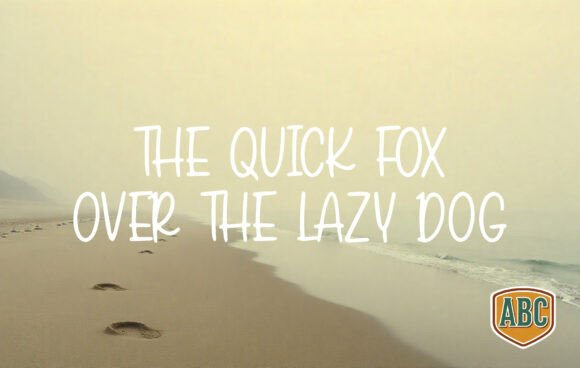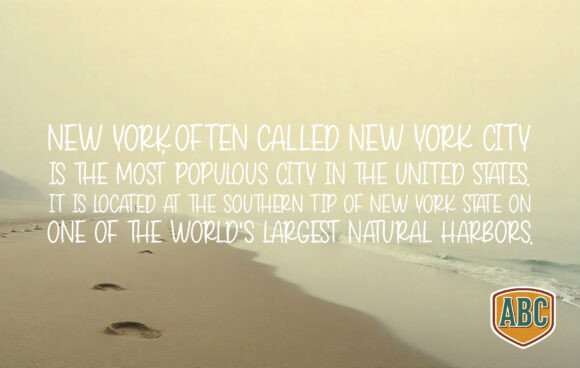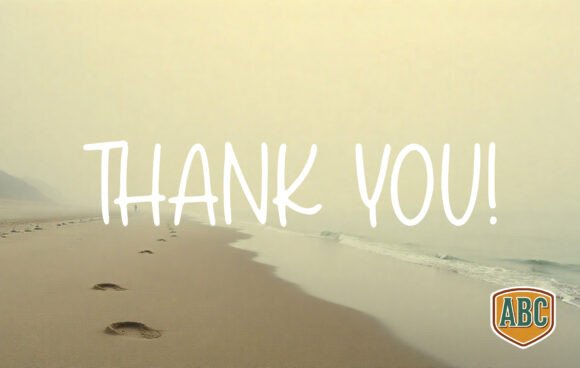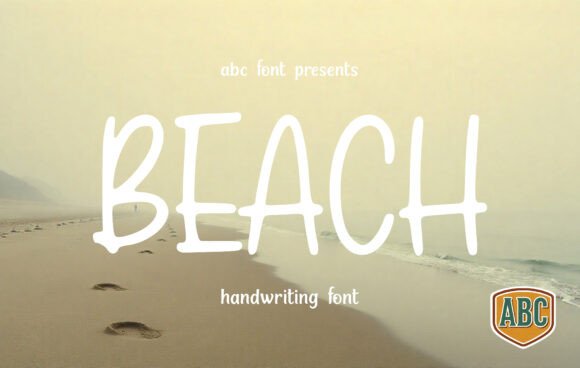
Introducing Beach Font: The Ultimate Casual Handwriting Font for Summer Vibes
Are you looking for a font that captures the carefree essence of a summer day at the beach? Look no further than Beach Font, a breezy and effortless casual handwriting font that’s perfect for bringing the relaxed vibes of the coast to your creative work.
The Characteristics of Beach Font
Beach Font features tall, slightly irregular strokes that mimic the look of writing in the sand or on a seaside postcard. This unique design gives the font a charming, unfiltered feel that’s perfect for creating a sense of freedom and spontaneity. The font’s casual, handwriting-like quality makes it ideal for use in a variety of creative projects, from travel blogs and summer event flyers to youth-oriented branding and beach-themed wedding decor.
The Perfect Choice for Summer-Inspired Projects
Beach Font is designed to evoke the feeling of a carefree summer, making it the perfect choice for any project that needs a bit of sunshine. Whether you’re creating a flyer for a pool party, a header for a surfing brand, or a social media post for a summer sale, this handwriting font provides the perfect touch of casual, outdoor charm. The font is at its best when used in high-exposure layouts or paired with “sunkissed” photography, adding a touch of warmth and personality to any design.
Creative Ways to Use Beach Font
Beach Font works wonderfully for a variety of creative applications, including:
- Annotations on travel photos: Add a personal touch to your travel photos with Beach Font’s casual, handwritten style.
- Summer sale banners: Create eye-catching banners that scream summer fun with Beach Font’s bold, playful letters.
- Beach-themed wedding decor: Bring the beach party to your wedding decor with Beach Font’s romantic, whimsical feel.
Design Tips for Using Beach Font
To get the most out of Beach Font, try pairing it with simple wave icons or “hand-drawn” doodles to lean into its casual, outdoor theme. This will help create a cohesive look that’s perfect for summer-inspired projects. You can also experiment with different colors and textures to add depth and interest to your design.
Why Designers and Crafters Love Beach Font
Beach Font is a versatile and charming font that’s perfect for designers and crafters who want to add a touch of summer fun to their creative projects. With its casual, handwriting-like quality and carefree vibe, Beach Font is sure to become a go-to font for anyone looking to evoke the feeling of a summer day at the beach.